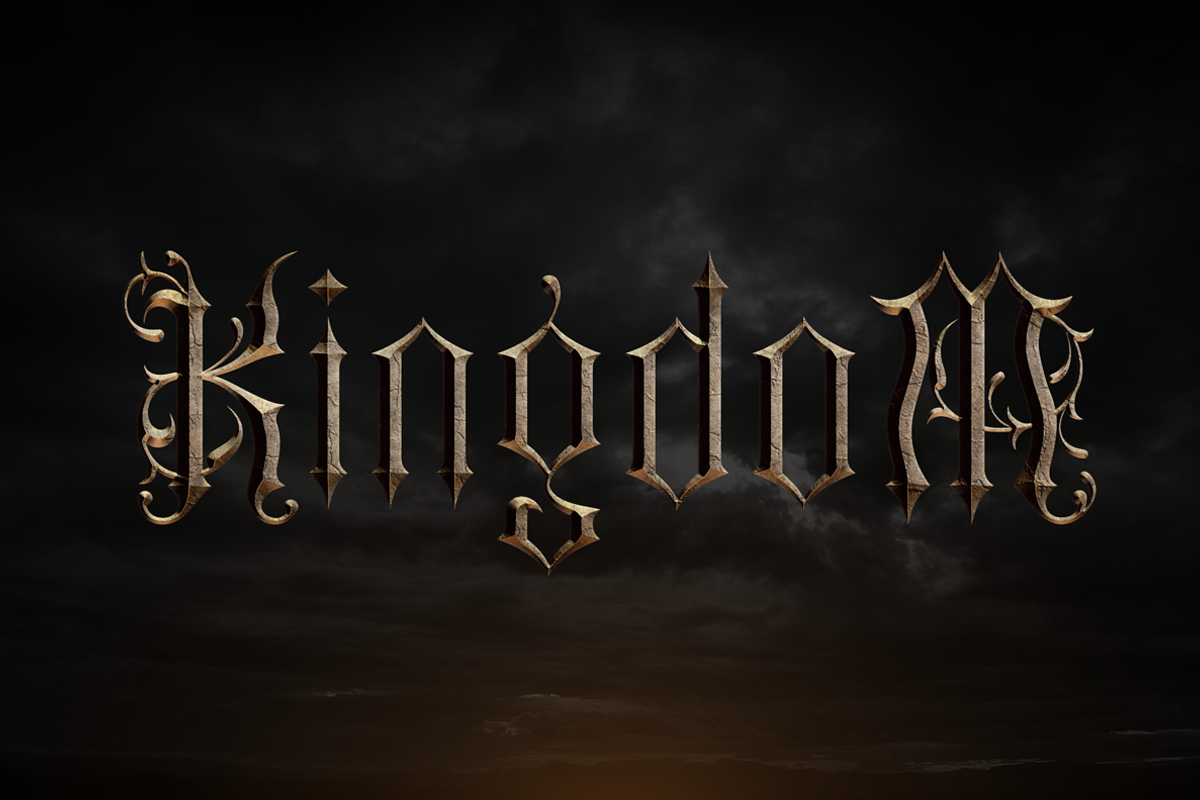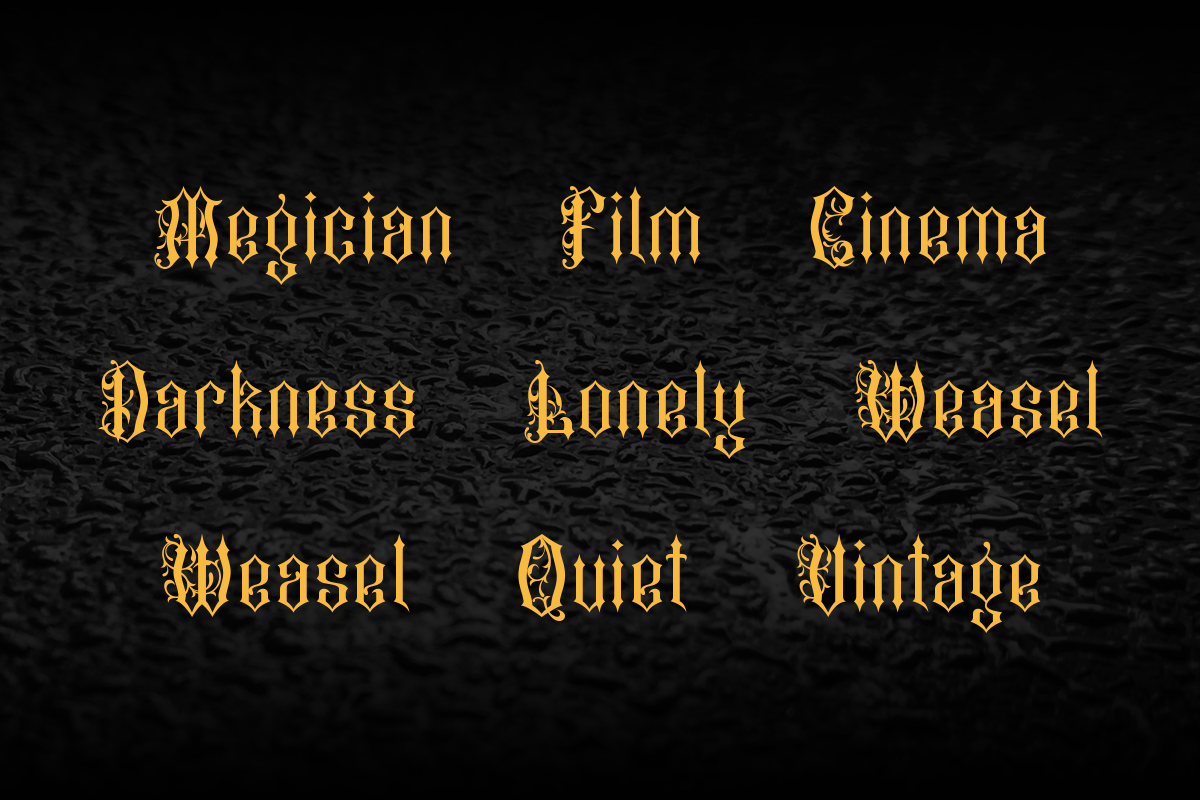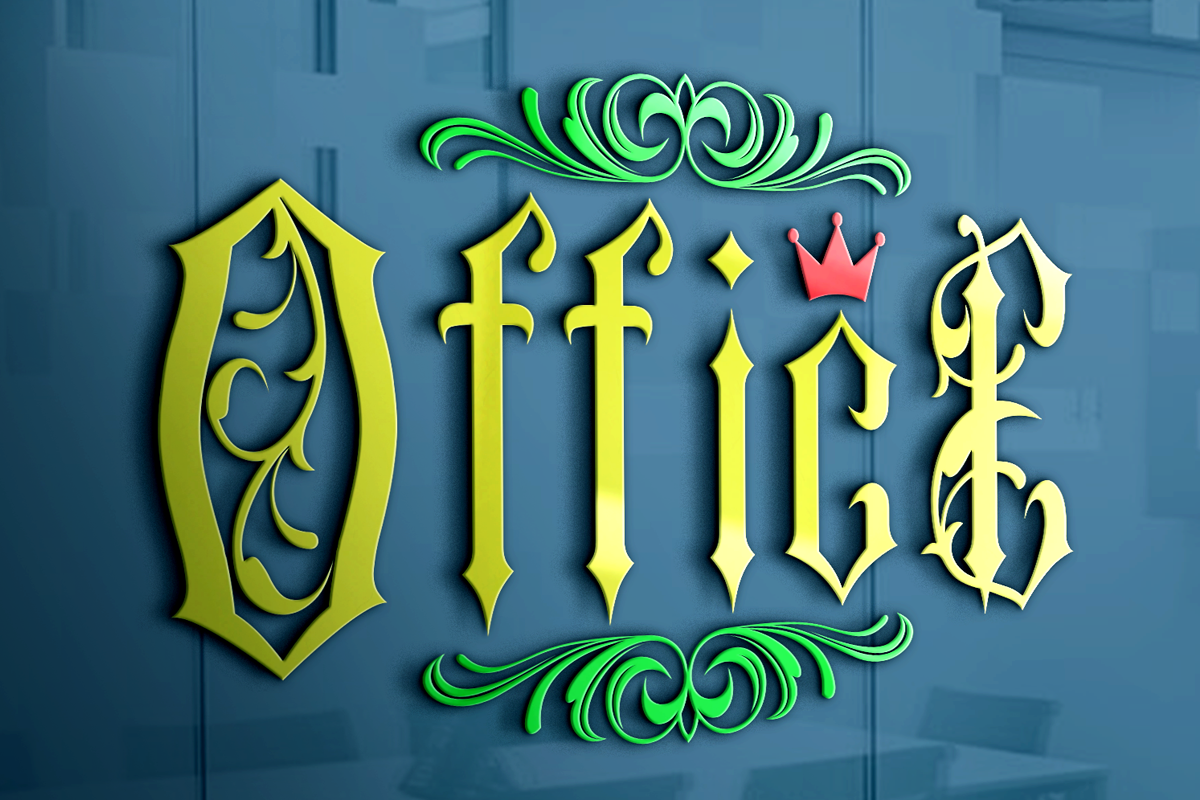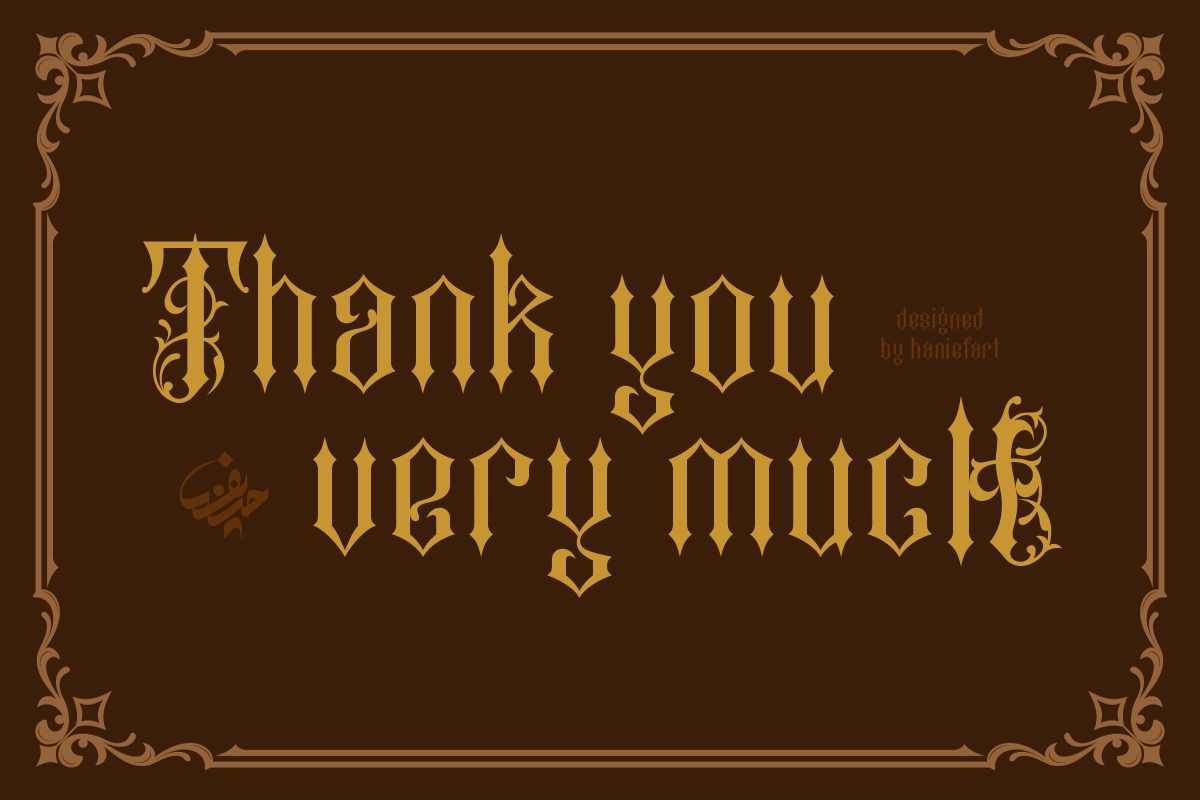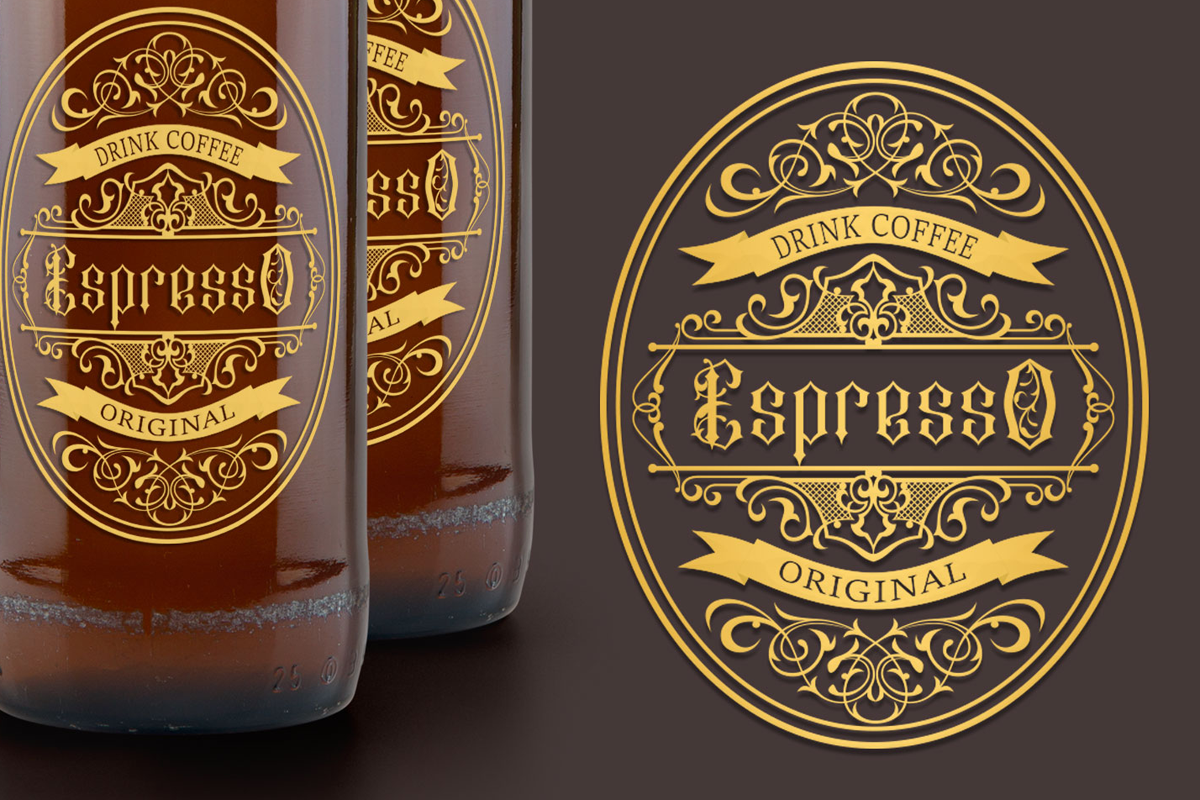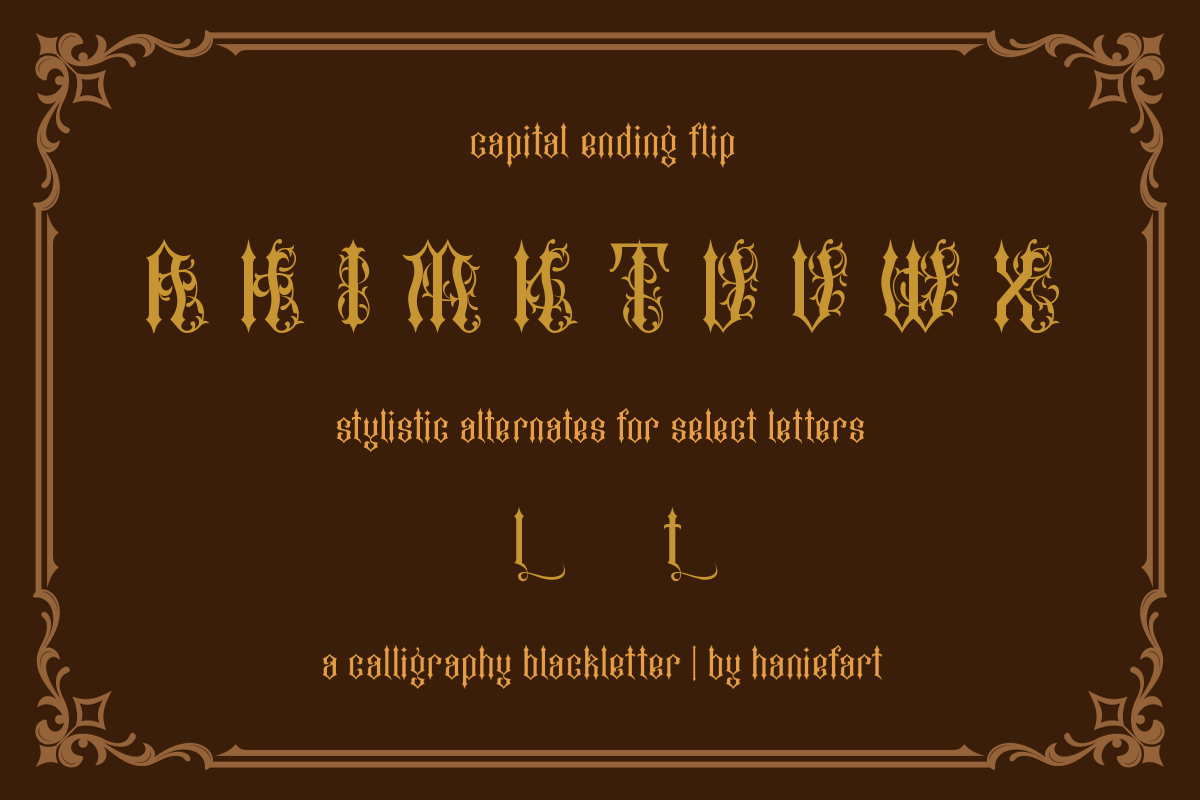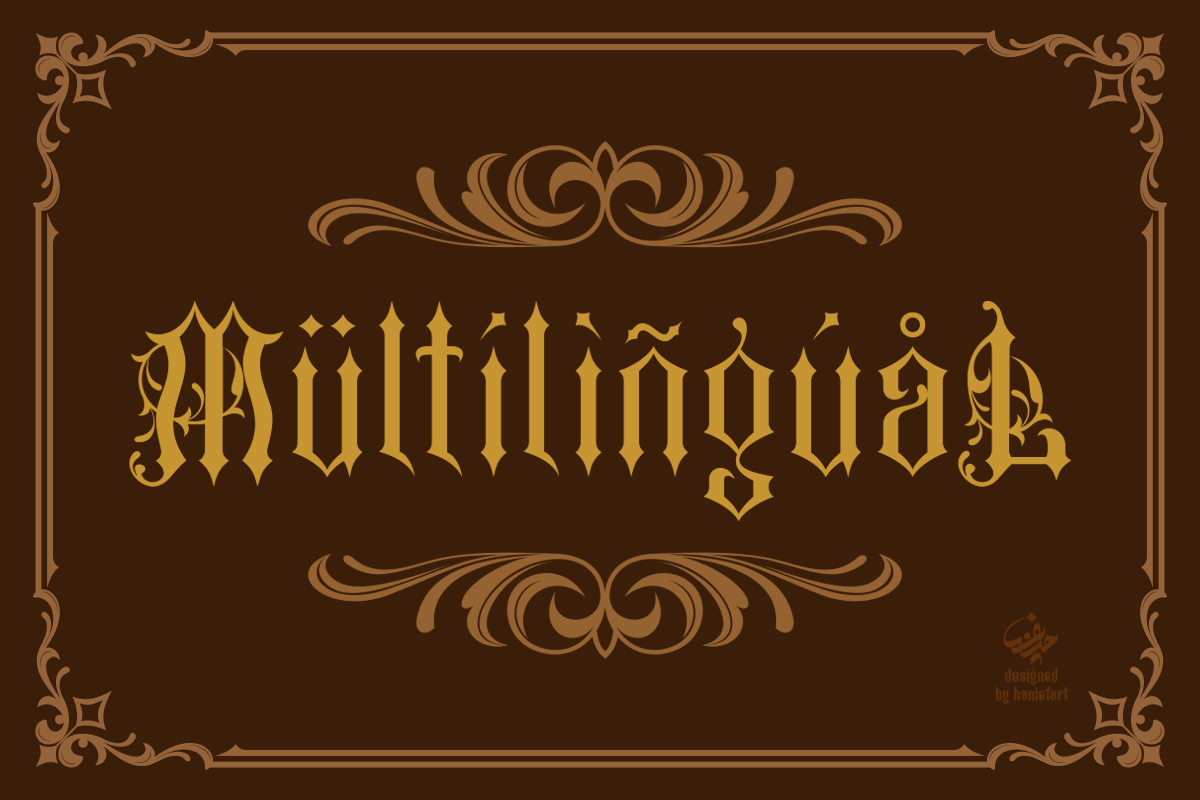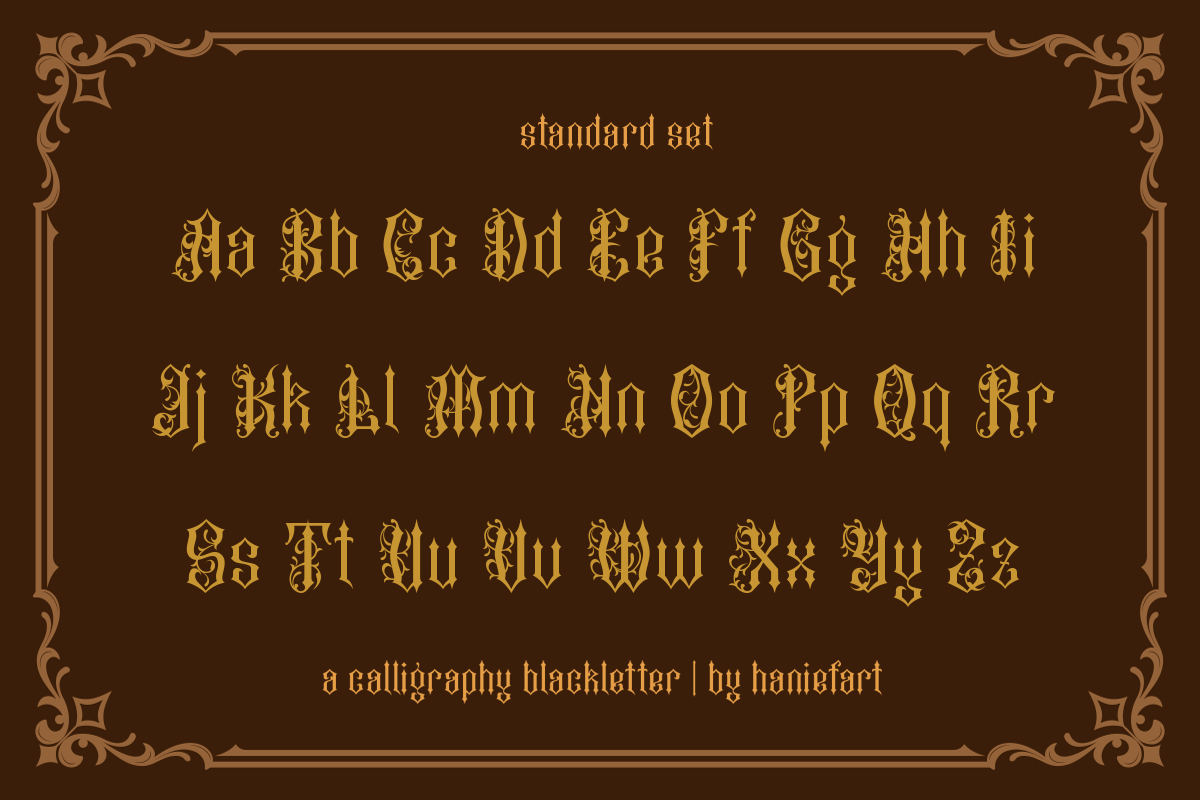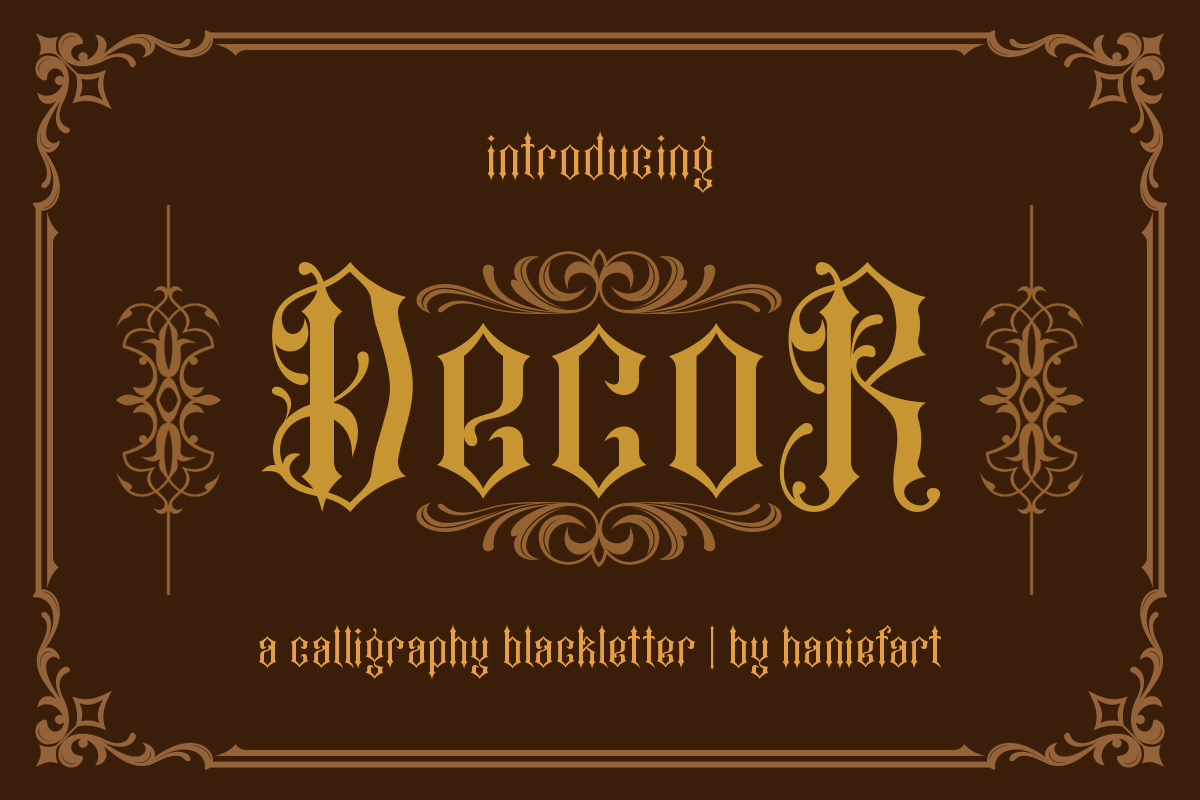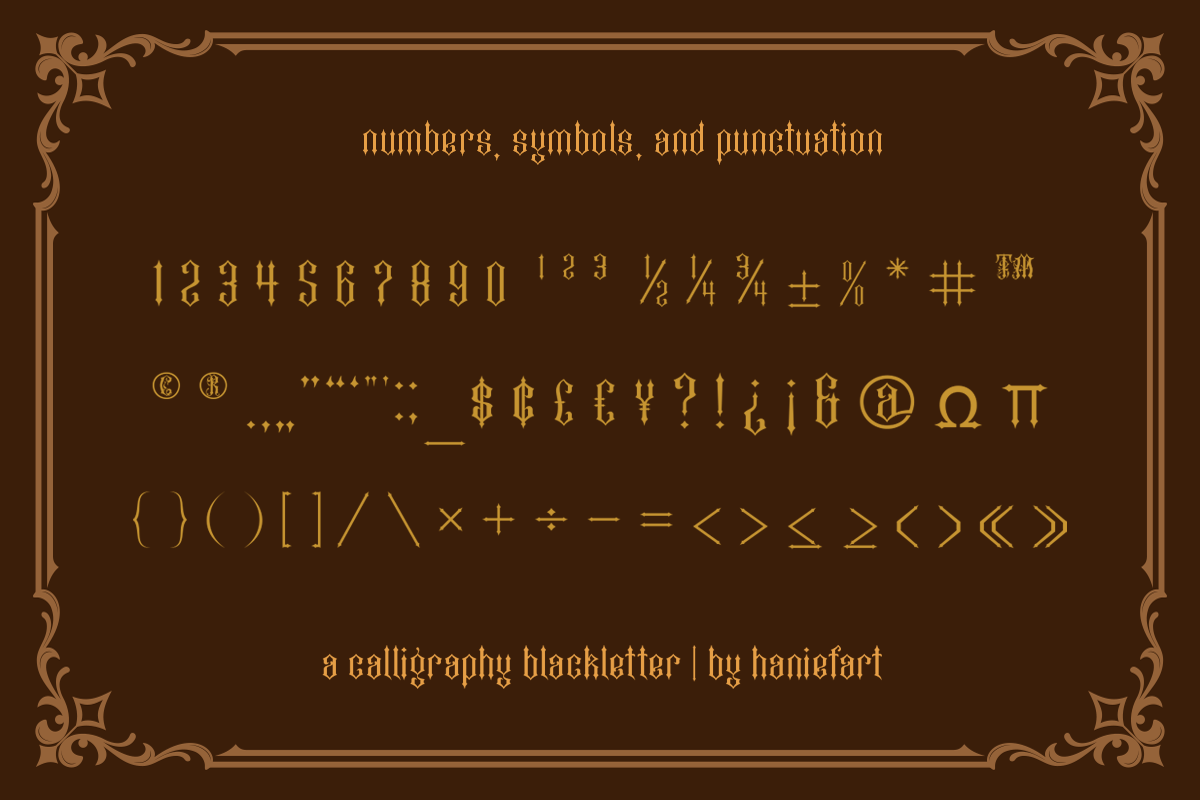
Decor - Blackletter Font
Decor is a striking blackletter typeface that exudes elegance and sophistication. Its intricate details and sharp serifs evoke a sense of tradition and grandeur, making it perfect for luxury branding, formal invitations, and historical-themed designs. Decor adds a touch of class and refinement to any project.